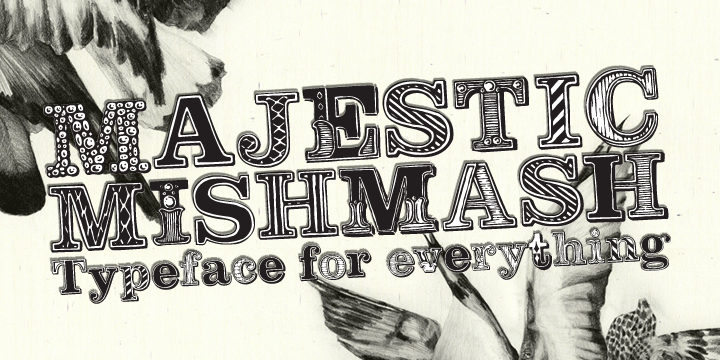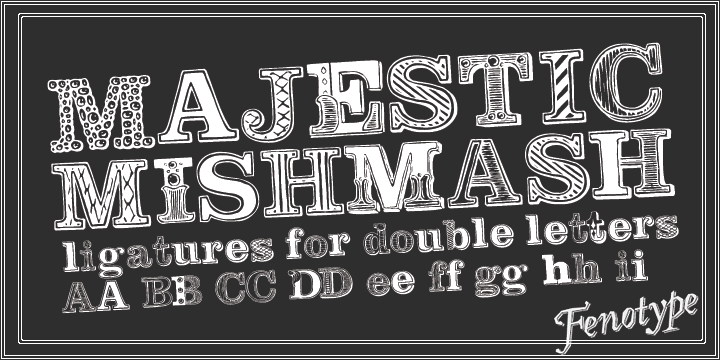
Majestic Mishmash
Majestic Mishmash is inspired by old times, patterns, ornaments and Eduardo Recife's work. Majestic Mishmash is totally hand drawn and every letter is unique. There's even double version of A-Z and a-z to prevent identical characters being side by side. It's suitable choice for flyers, posters, and headlines and advertisement whenever you need to have a distinguishable visual style.